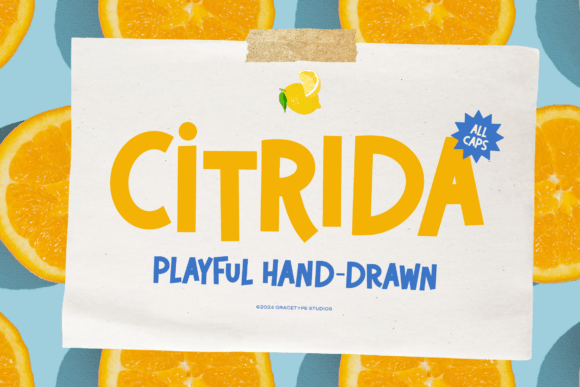
The Perfect Squeeze: Unlocking Creativity with Citrida Font
Who hasn’t been inspired by a burst of citrus on a sunny morning? The vibrant colors, the invigorating scent, and the sense of possibility that comes with a new day. As designers, we’re always on the lookout for that spark that sets our creative juices flowing. And sometimes, it’s not just about the idea, but the tools we use to bring it to life.
Enter Citrida Font, a playful, hand-drawn typeface that captures the essence of a summer morning. With its bold weight and charming silhouette, Citrida is the perfect choice for designers looking to add a touch of whimsy and personality to their designs. Whether it’s a juice bar branding, a children’s book title, or a social media graphic, Citrida Font brings a refreshingly human touch to every layout.
Citrida Font Key Features
- Unique Characteristics: Citrida Font features a unique blend of modern and classic design elements, with subtle rounded edges and elegant lines.
- Font Pairing: Designed to pair well with a wide range of font styles, from sans-serif to script fonts, allowing for endless creative possibilities.
Citrida Font Review
I recently had the chance to work with the Citrida Font, and overall, it’s a solid addition to any designer’s toolkit. Here’s what I think works well:
- ✨ The Citrida Font has a unique, modern aesthetic that’s perfect for creative projects, from branding to packaging design.
- ✨ The font is highly legible, even at smaller sizes, making it ideal for body text or headings.
- ✨ The font family includes a range of weights and styles, giving designers plenty of flexibility to create visually appealing typography.
However, there are some limitations to keep in mind:
- ⚠️ The Citrida Font may not be the best choice for formal or traditional projects, as its modern design may not be suitable for those contexts.
- ⚠️ The font’s uniqueness can sometimes feel overwhelming, so designers should use restraint when applying it to avoid visual overload.
Overall, I think the Citrida Font is a great option for designers who want to add some visual interest to their projects. While it may not be perfect for every situation, it’s definitely worth considering for creative projects that require a modern, attention-grabbing aesthetic.
Tips for Getting the Most Out of Citrida Font
Here are some tips for getting the most out of Citrida Font:
- Use Citrida Font in combination with bold or italic text for added emphasis
- Experiment with different font sizes and colors to create visual interest
- Use Citrida Font for headings and titles to create a clear hierarchy of information
Citrida Font is commonly used for:
- Use Citrida Font as the primary font for headings and subheadings to add a pop of color and personality to your blog posts.
- Combine Citrida Font with a clean sans-serif font like Open Sans or Lato for body text to create a clear and readable layout.
- Use citrus-inspired colors like orange, yellow, and green to create a cohesive visual identity for your blog.
- Use Citrida Font as the primary font for logotypes and headings to create a consistent and recognizable brand identity.
- Combine Citrida Font with a geometric sans-serif font like Montserrat or Avenir to create a modern and sleek visual identity.
- Use citrus-inspired colors like bright orange and green to create a visually appealing color scheme for your branding.
Project 2: Minimalist Branding for a Fresh Juice Company
Citrida Font is ideal for a fresh juice company that wants to convey a sense of natural and healthy living. The font’s clean and modern design will appeal to customers looking for a fresh and revitalizing brand.
Project 3: Digital Art Print Featuring a Citrus Theme
Citrida Font is perfect for a digital art print featuring a citrus theme. The font’s citrus-inspired design elements will add a touch of whimsy and fun to your art print.